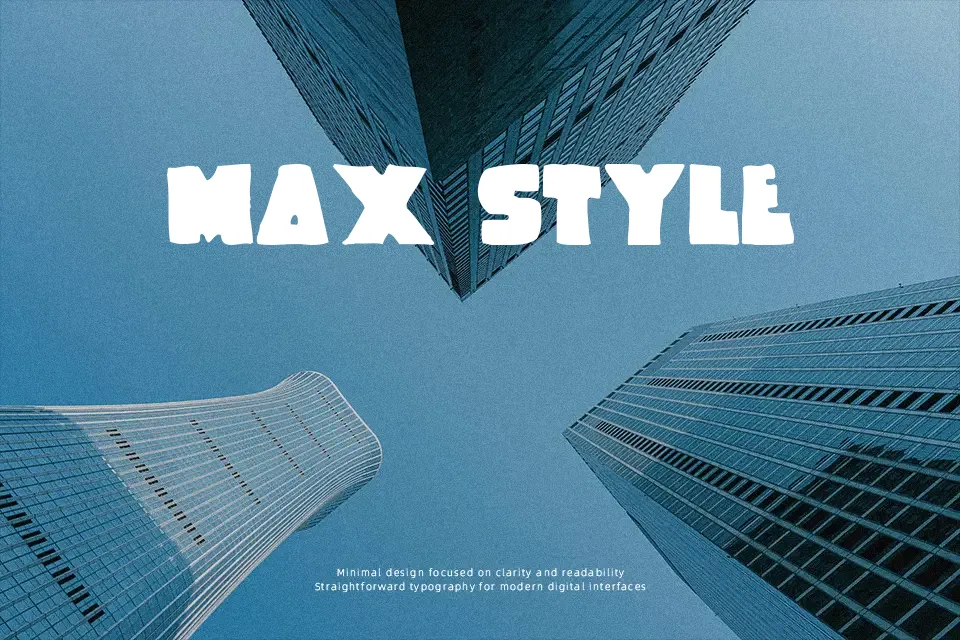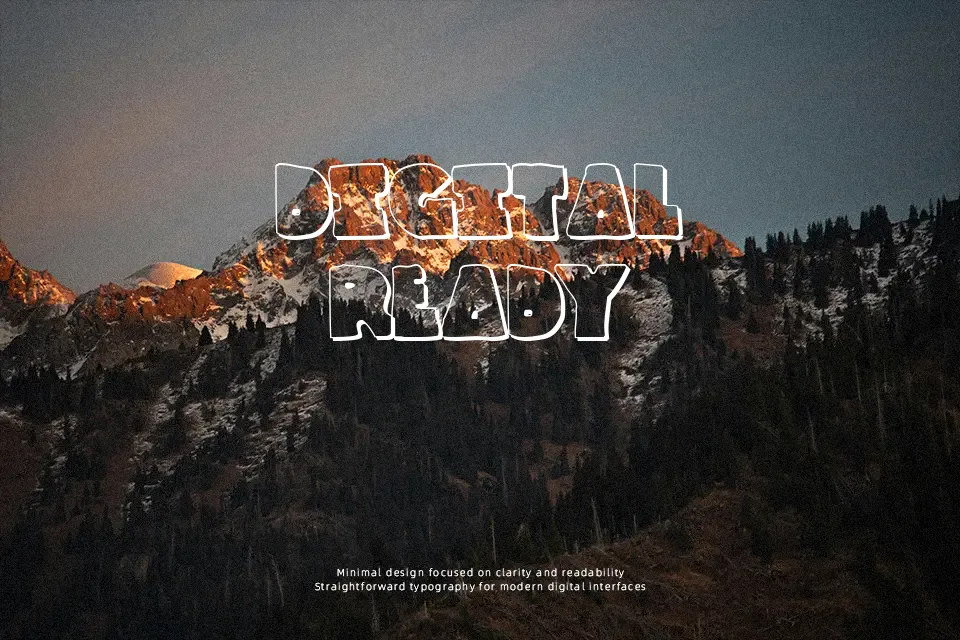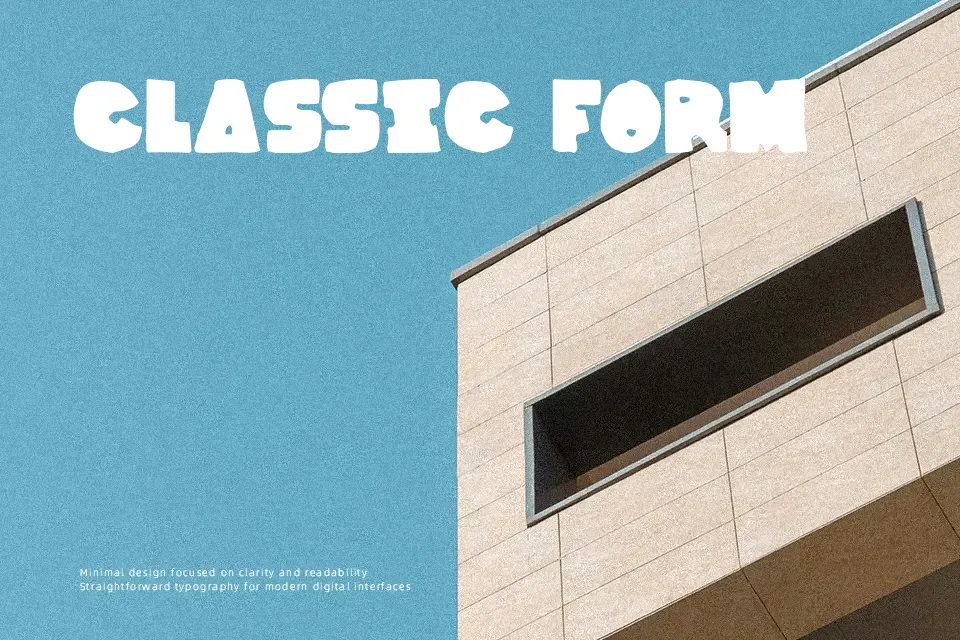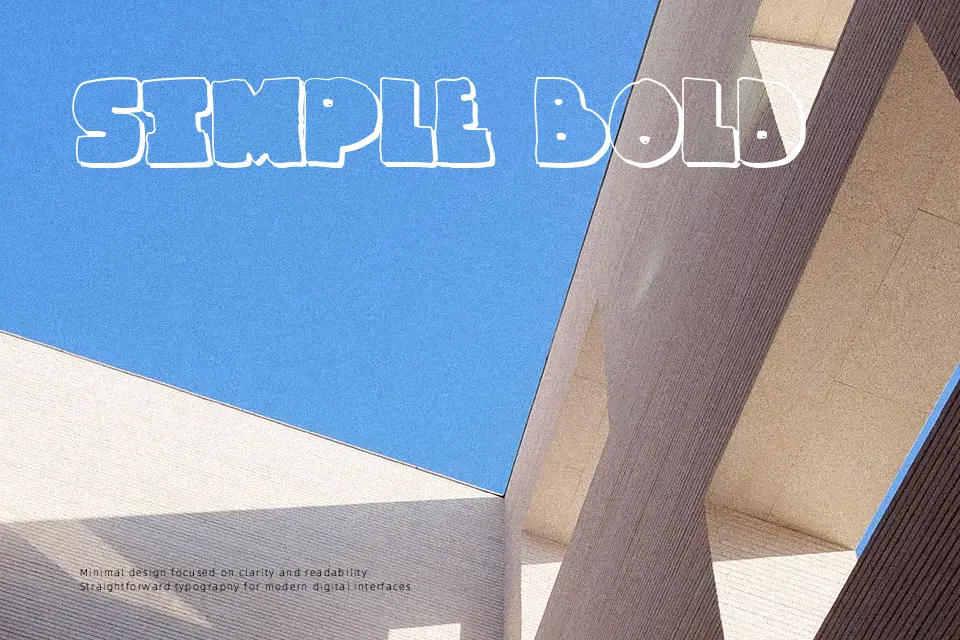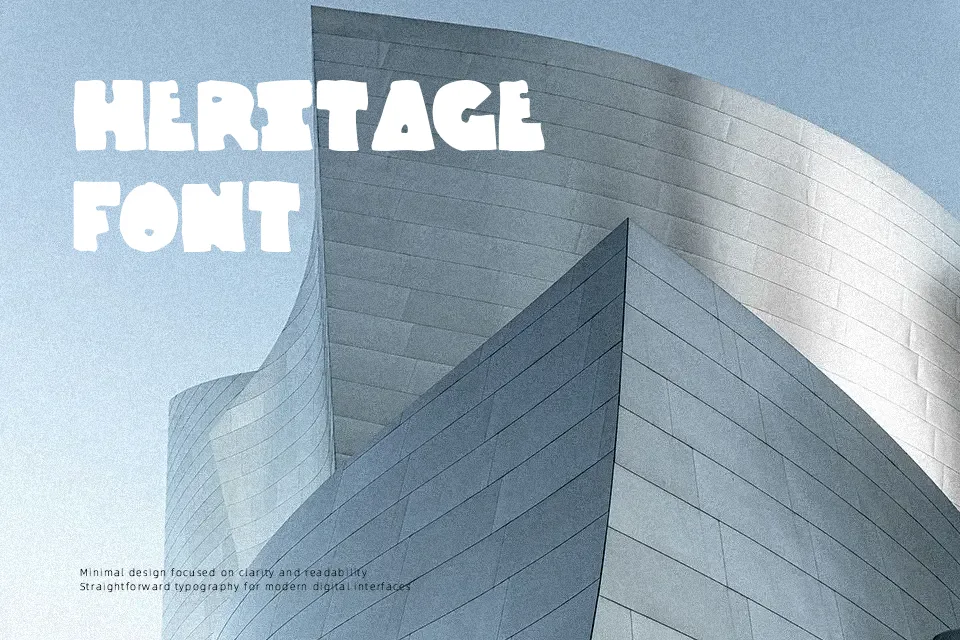
Thunder Thighs Font
Display projects demanding immediate levity benefit directly from Thunder Thighs Font, which establishes an unmistakably animated tone through plump strokes and swollen, asymmetrical bowls. The letterforms incorporate wide structural footprints alongside compact horizontal spacing, creating tightly knit text clusters that prioritize punchy headlines over subtle nuance. Stroke consistency remains uniformly heavy throughout all glyphs, giving short phrases tremendous presence on amusement park signage, toy packaging, and comic titles. However, the sheer density of each character significantly diminishes legibility when scaled down to small captions or body copy. Dense counters easily clog at reduced dimensions, making the design far less suitable for continuous paragraphs or intricate editorial settings.
Best For: amusement park signage, comic book covers, novelty merchandise, toy packaging
Not Ideal For: continuous body text, corporate annual reports, dense spreadsheets, mobile interface labels